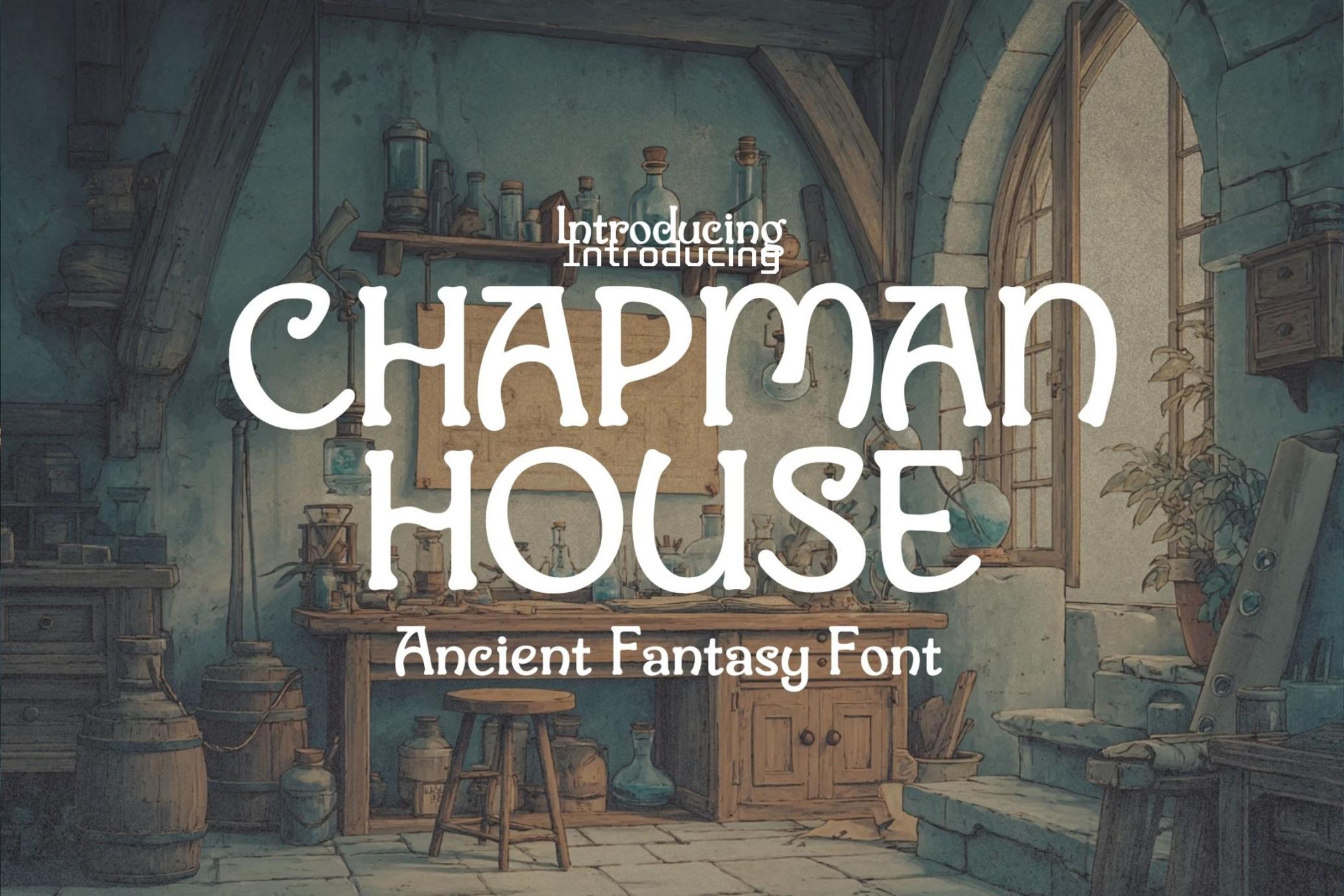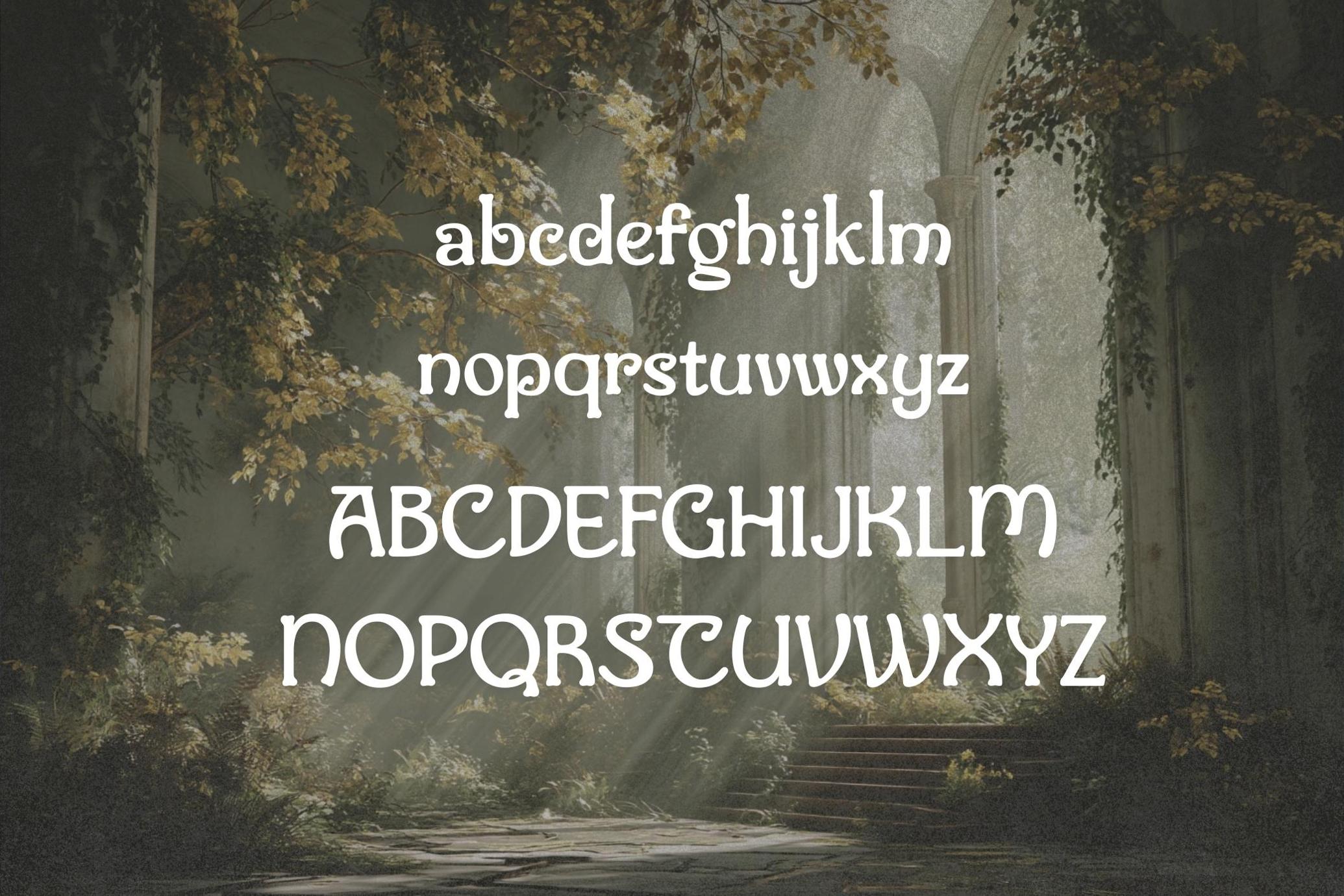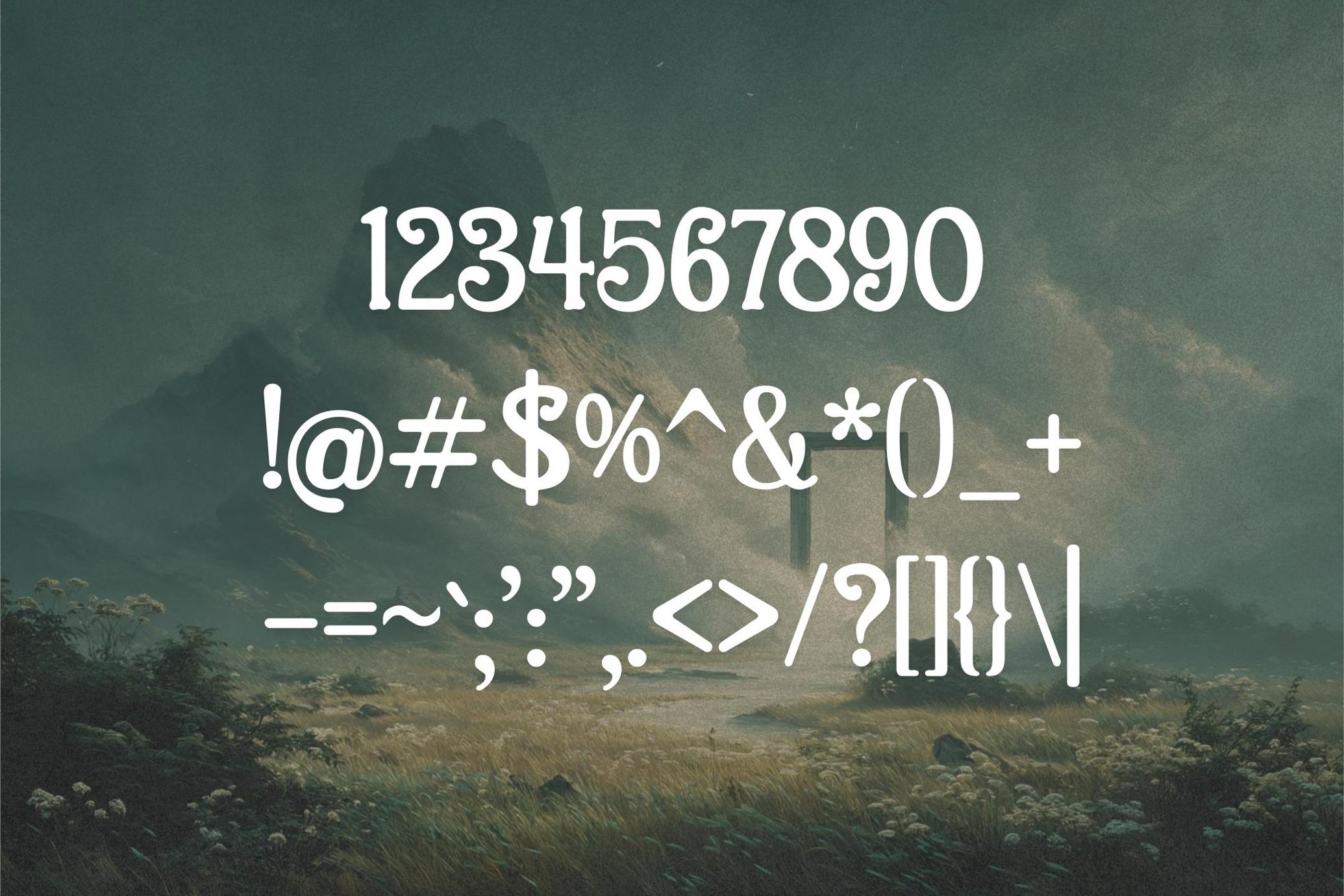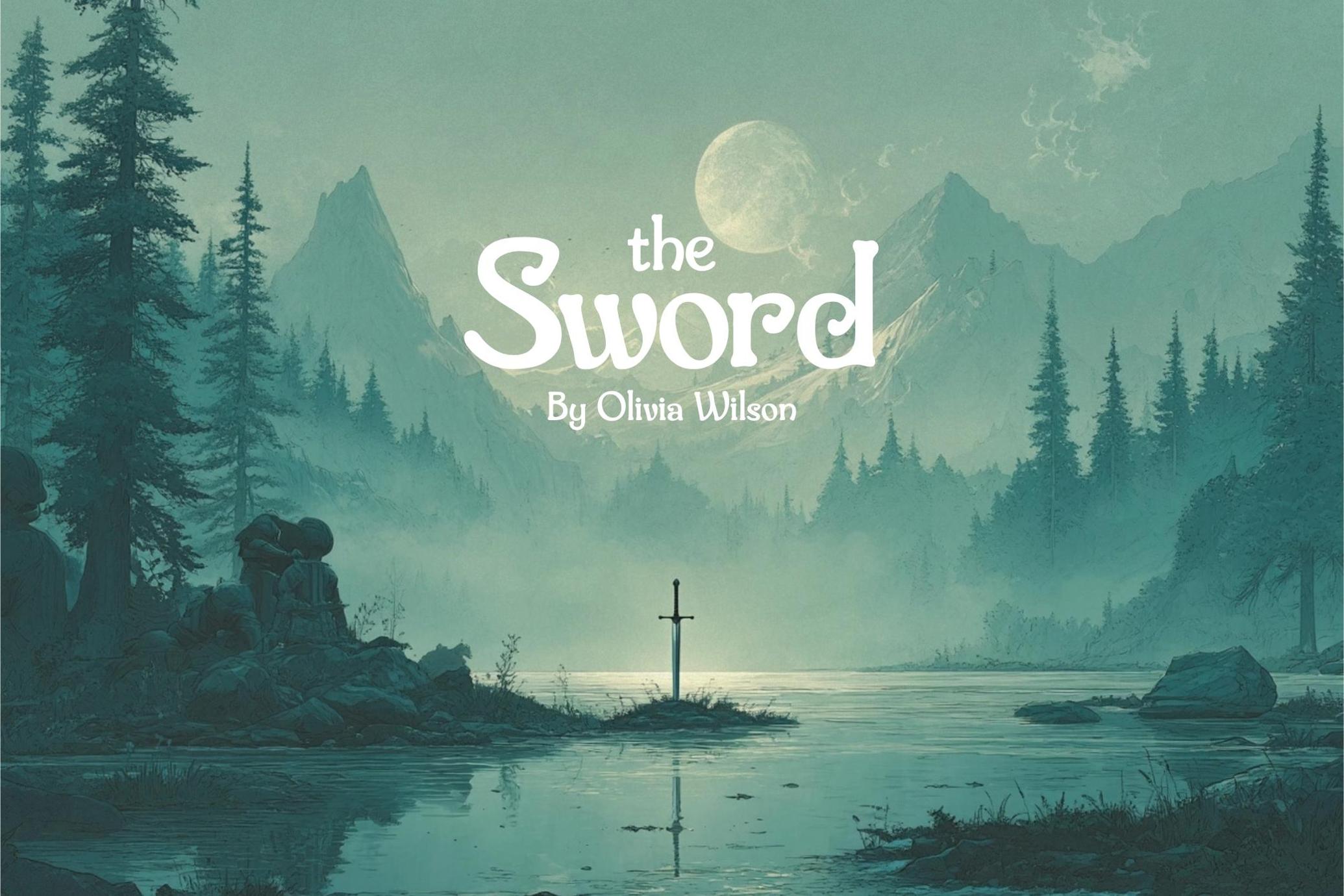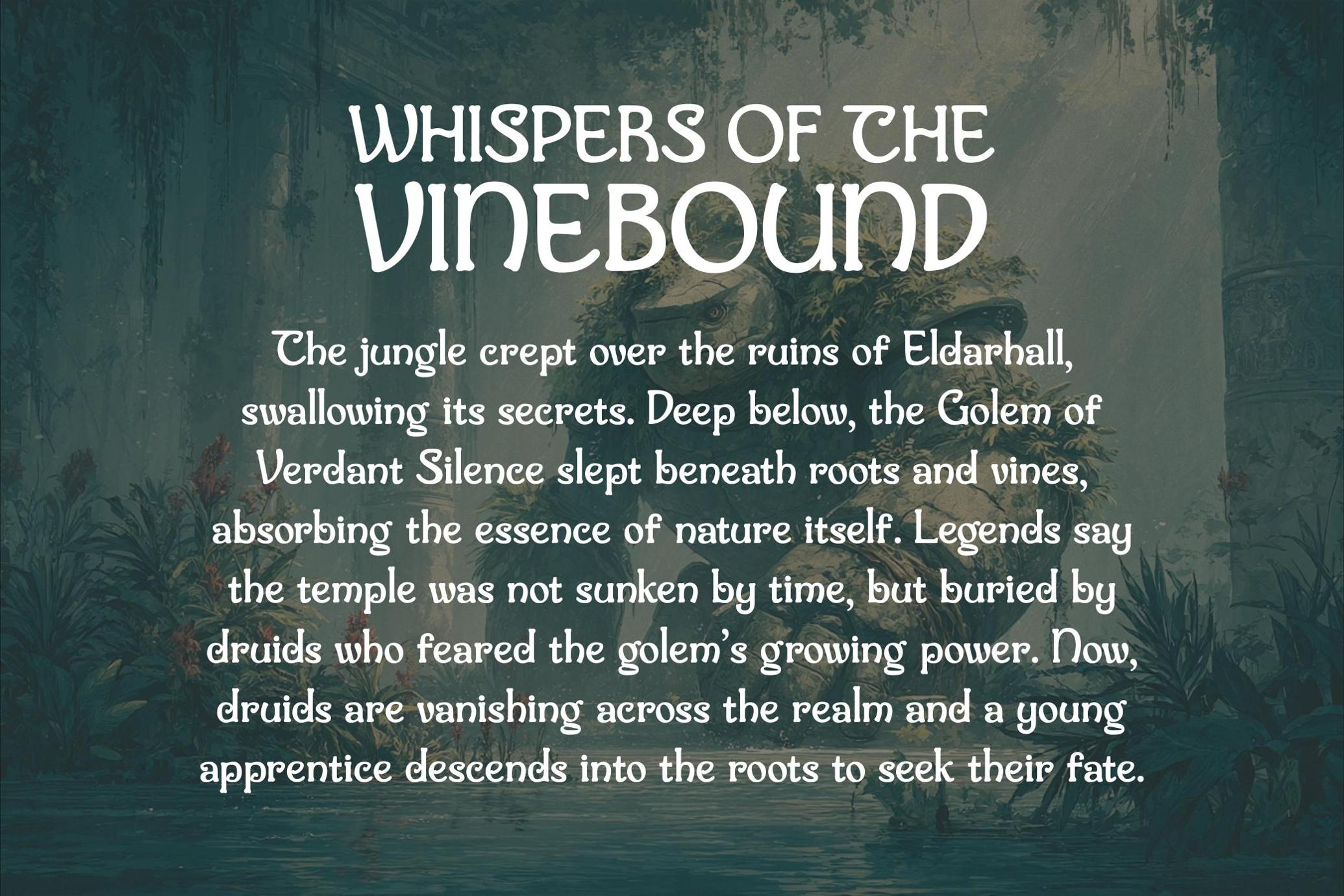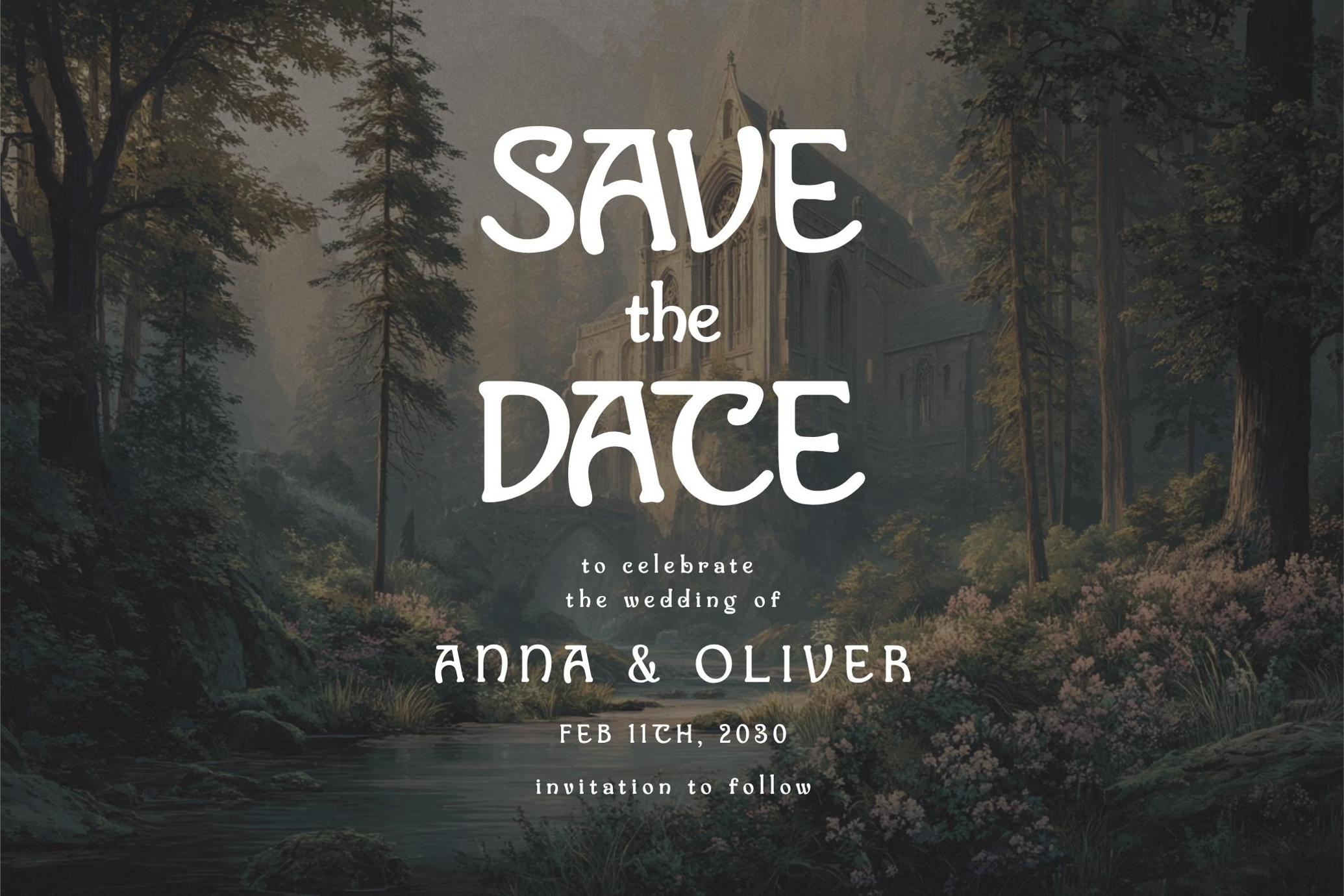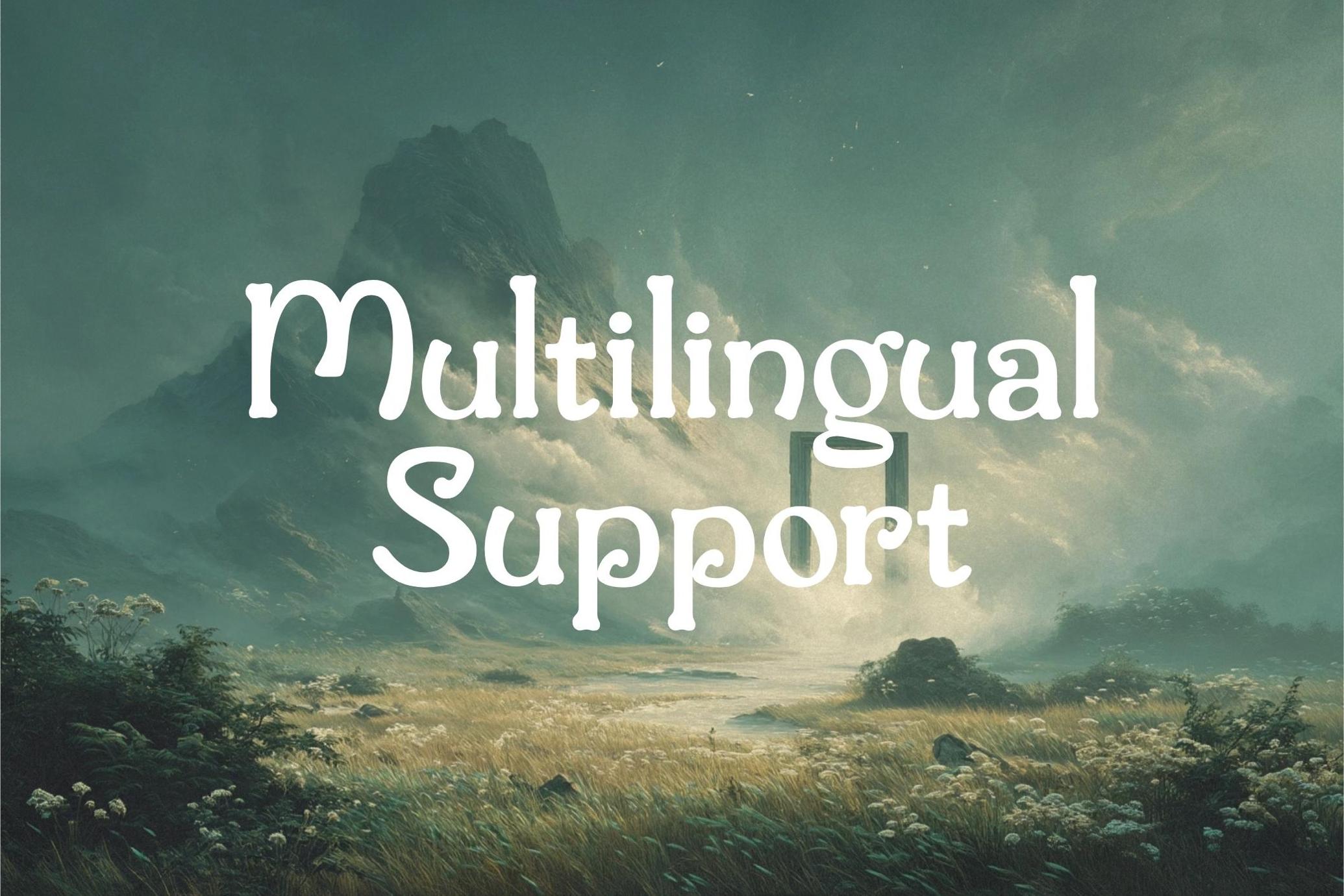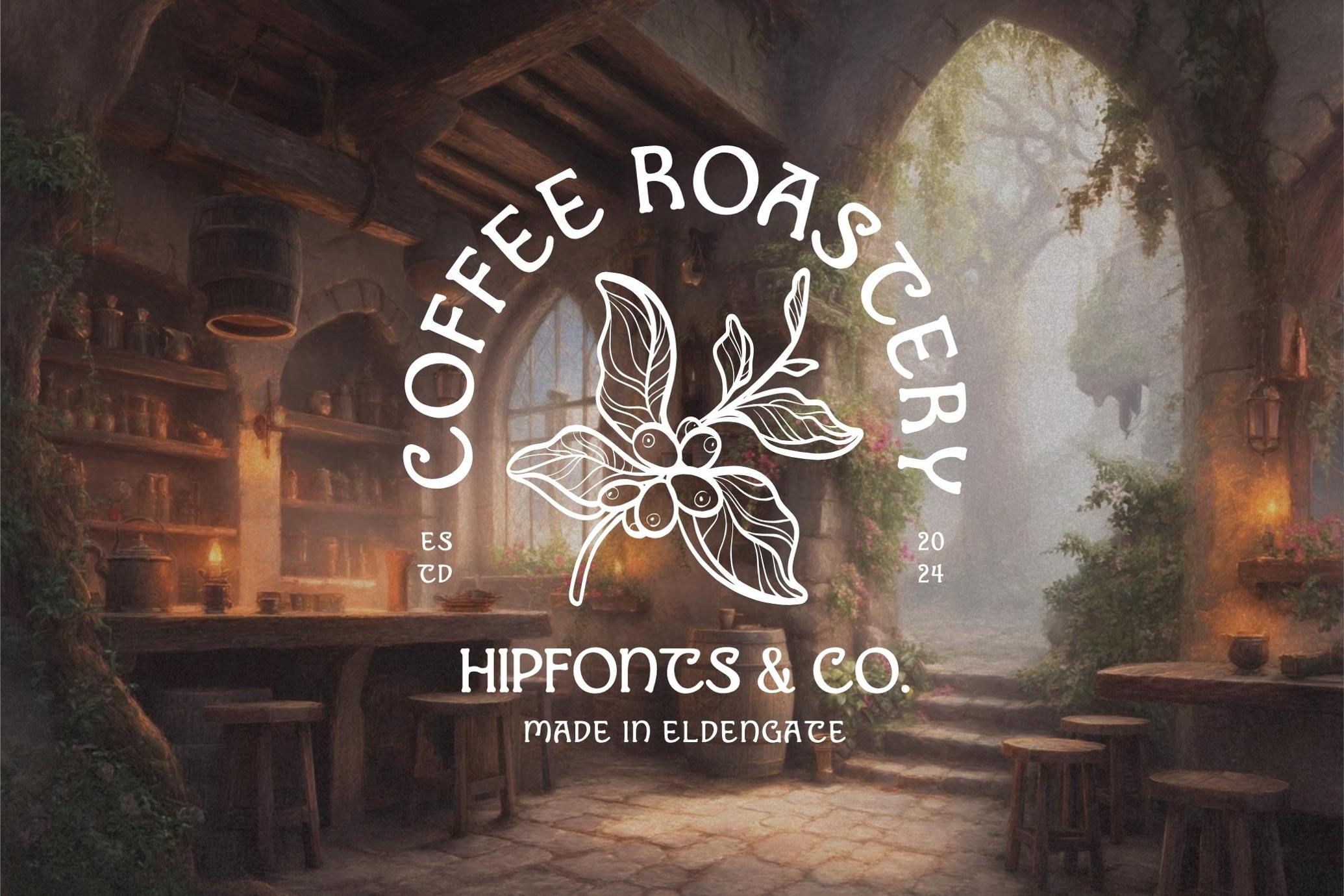
Chapman House - Vintage Fantasy Typeface
Step into the realm of legends with Chapman House.
Forged in the fires of fantasy and steeped in the ink of ancient scrolls, Chapman House is a medieval-inspired typeface designed for creators who dare to dream beyond the veil of reality.
With letterforms echoing the calligraphy of forgotten kingdoms, this font evokes the magic of weathered tomes, royal decrees, and arcane prophecy. Every curve and serif breathes with the spirit of adventure, perfect for conjuring up boundless worlds, legendary quests, mystical branding, and titles that demand reverence.
Whether you're crafting the logo of a guild, the title of a fantasy novel, a game interface steeped in lore, or spellbinding packaging, Chapman House delivers with unmistakable charm and gravitas. Its characters are both readable and ornamental, balancing function with pure fantastical flair.